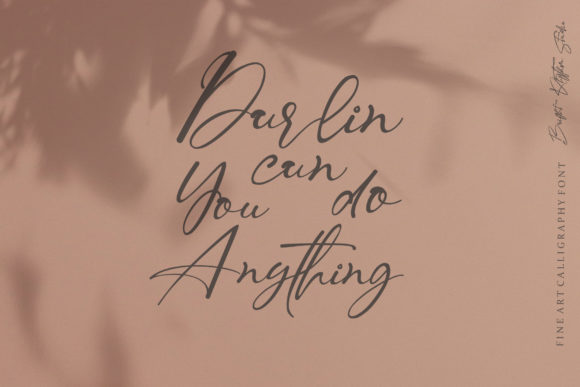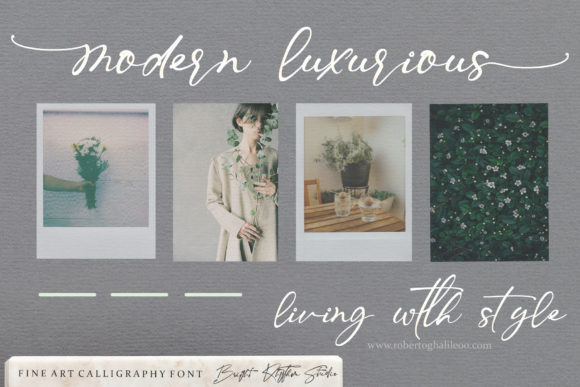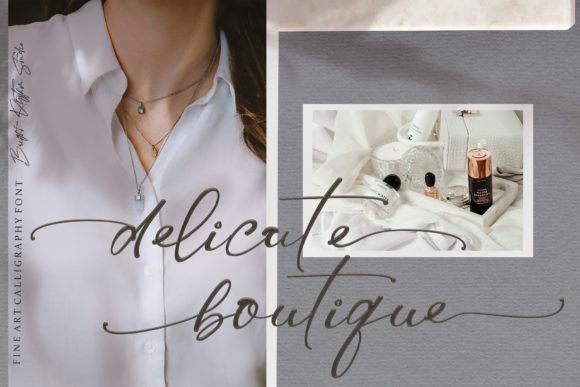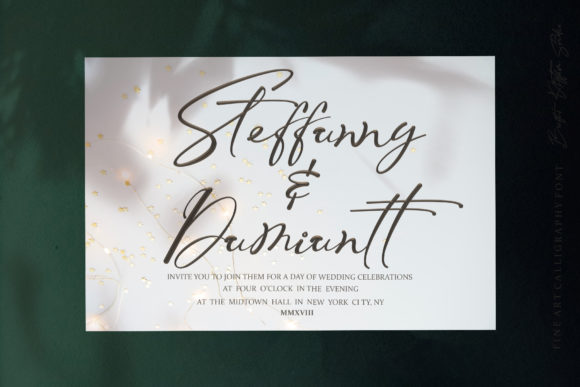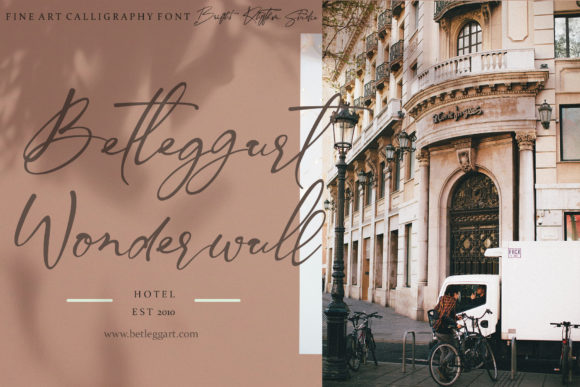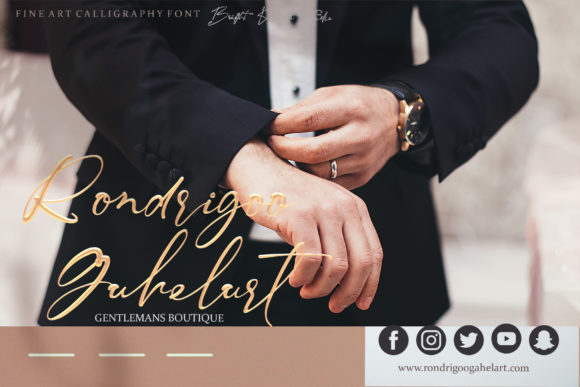
Morthsside Font
About Morthsside Font
Morthsside is a romantic and sweet calligraphy typeface with characters that dance along the baseline. It has a casual, yet elegant touch. This font is PUA encoded which means you can access all of the glyphs and swashes with ease!